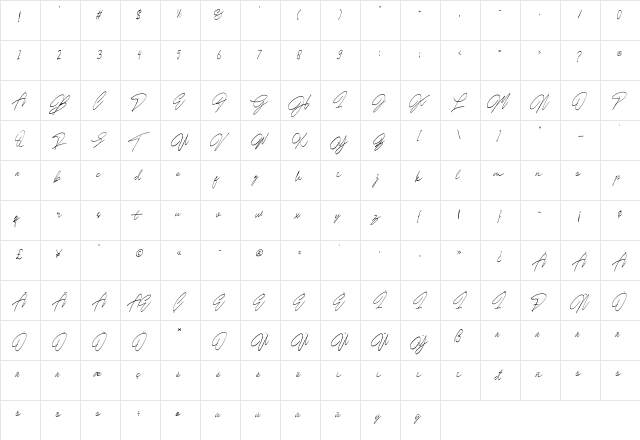
Las Pariellas Script
| Style | Script |
| Foundry | Astageni Type |
| Designer | Nur Solikh |
Design Context for Las Pariellas Typeface
Las Pariellas brings a calligraphic fluidity to the page — its connecting strokes and expressive curves give it an unmistakably human quality.